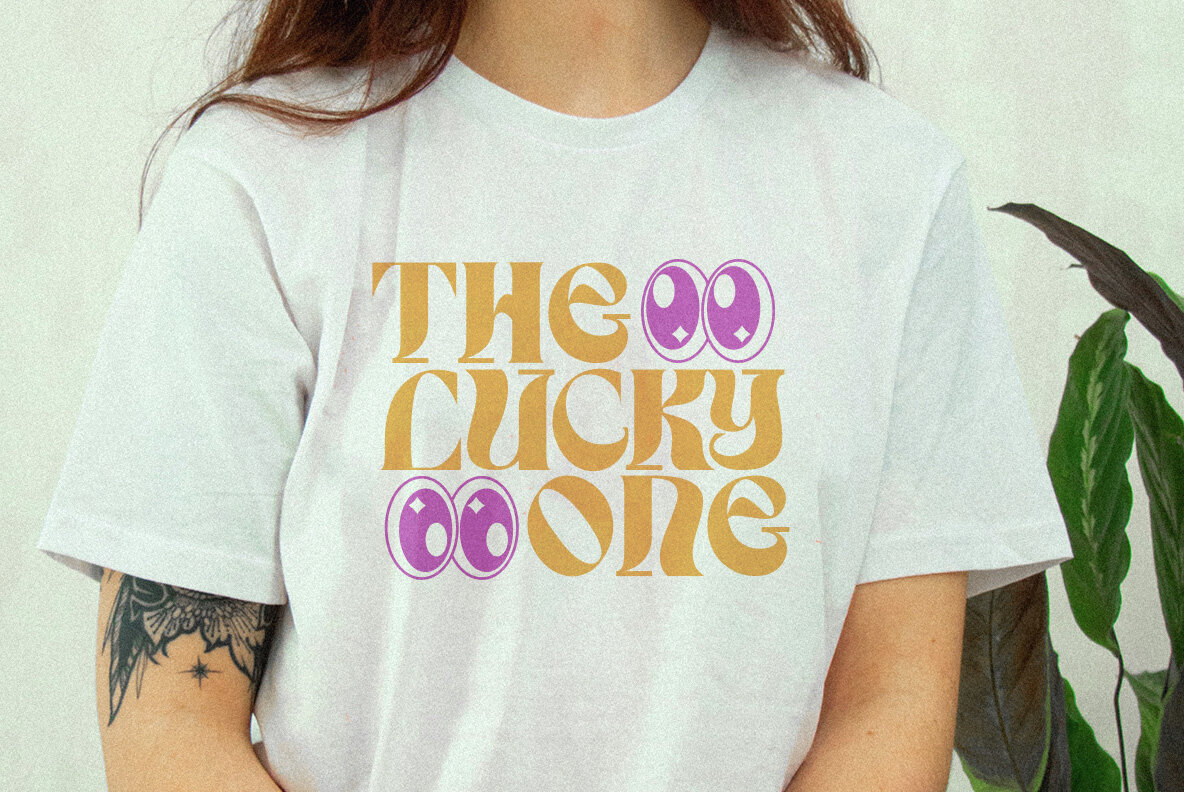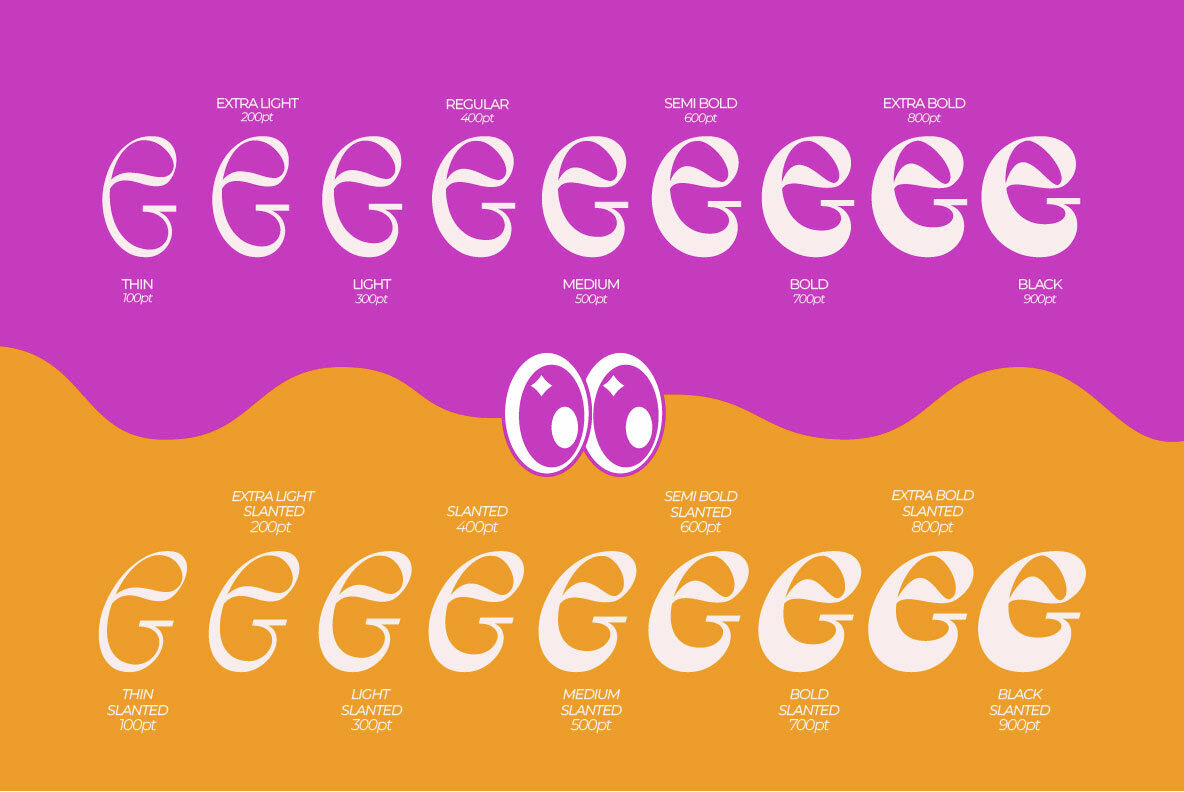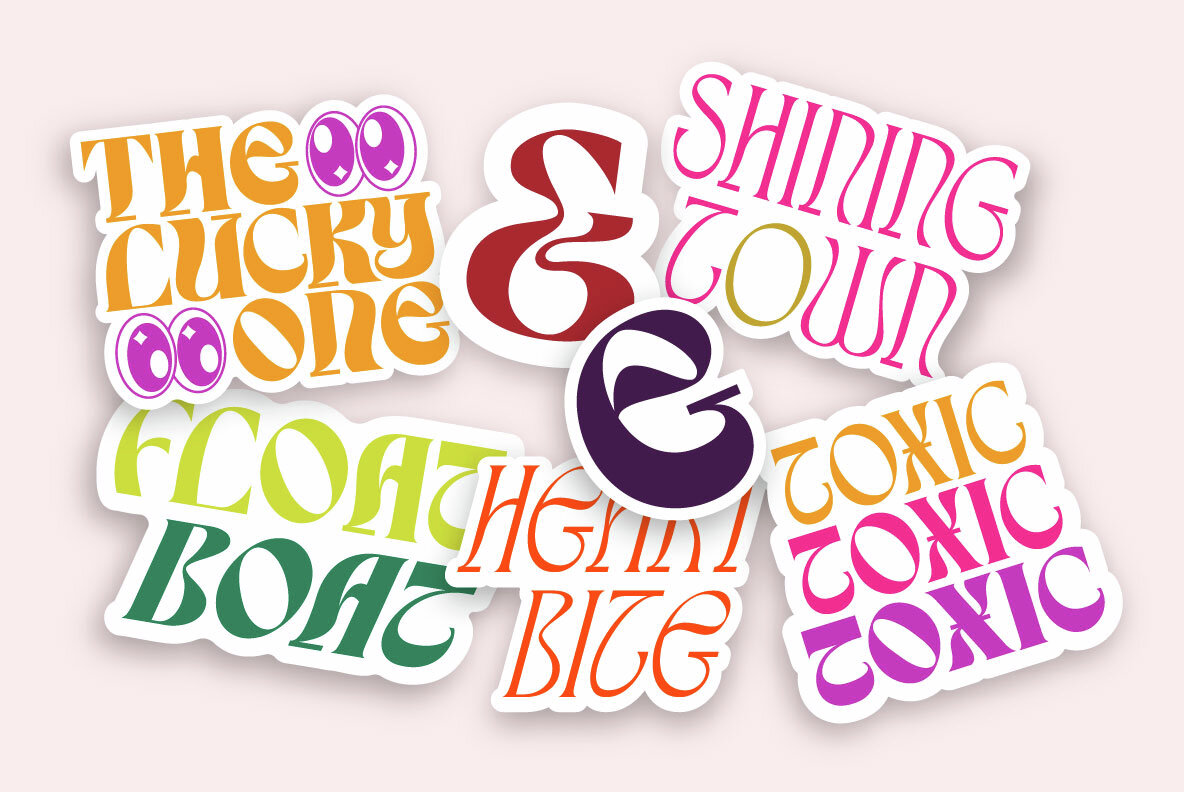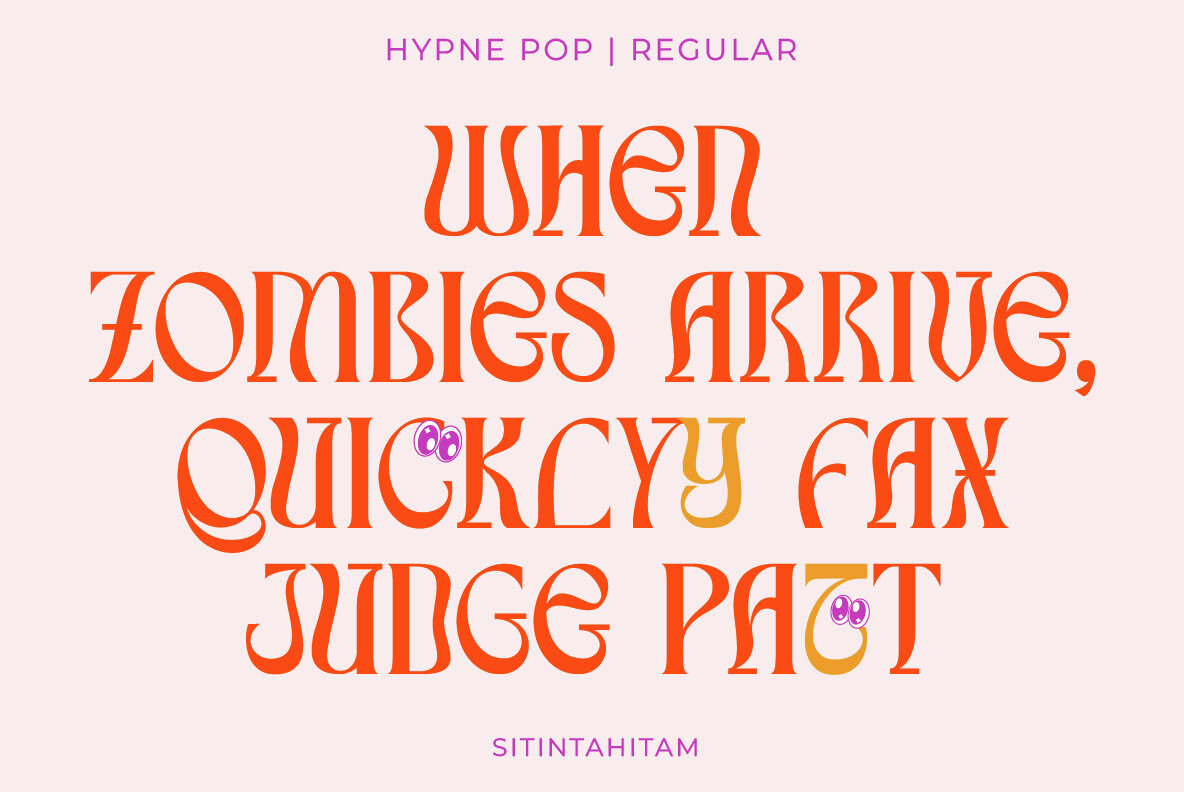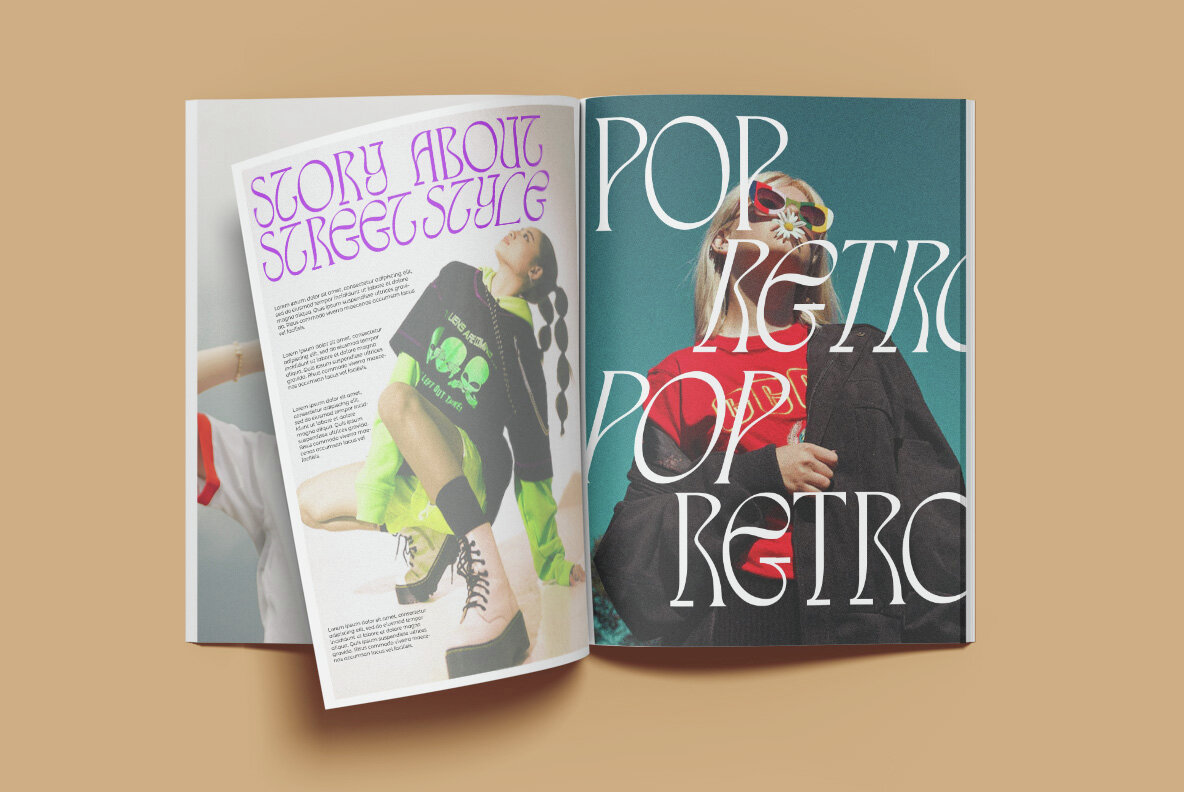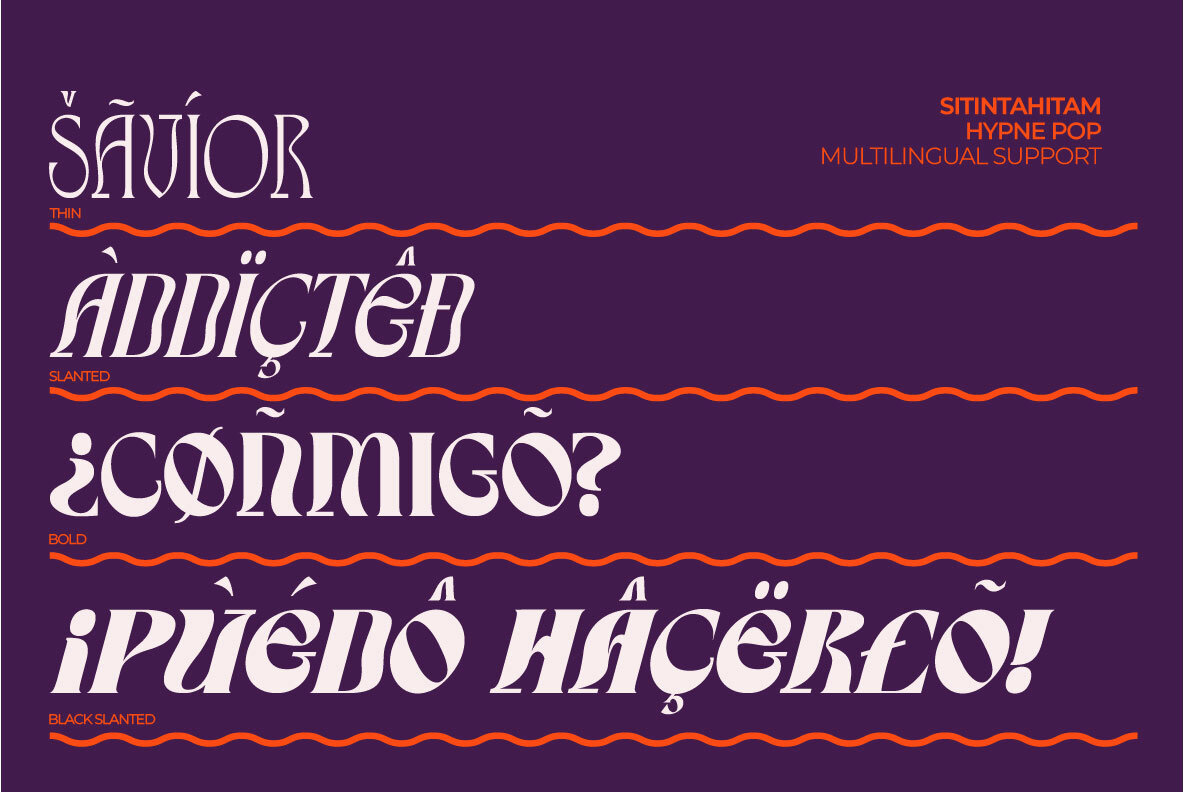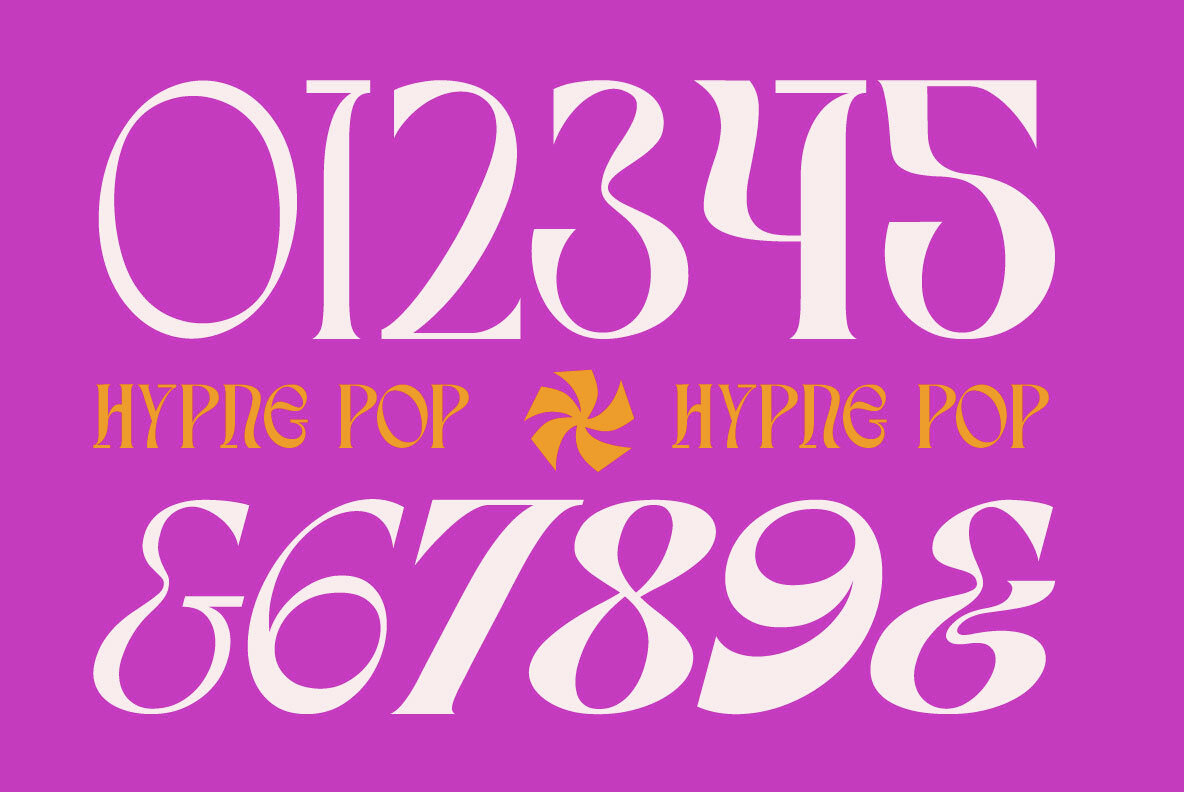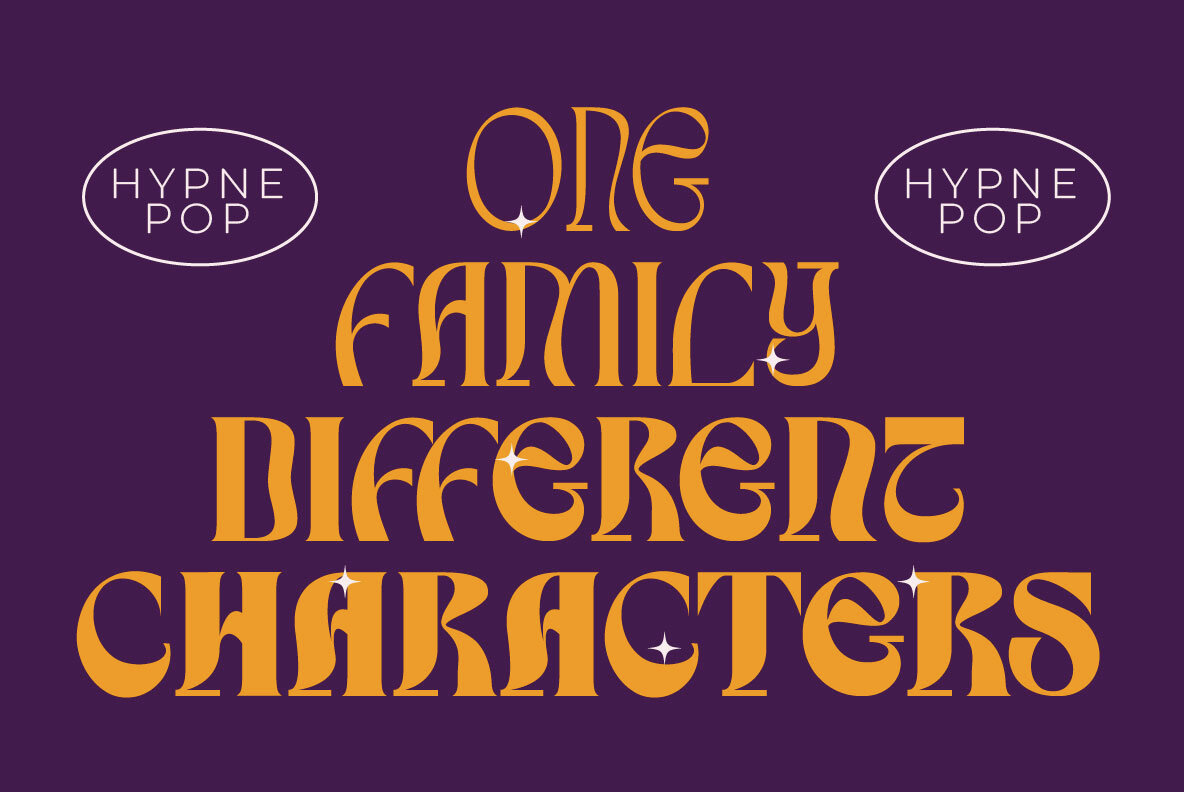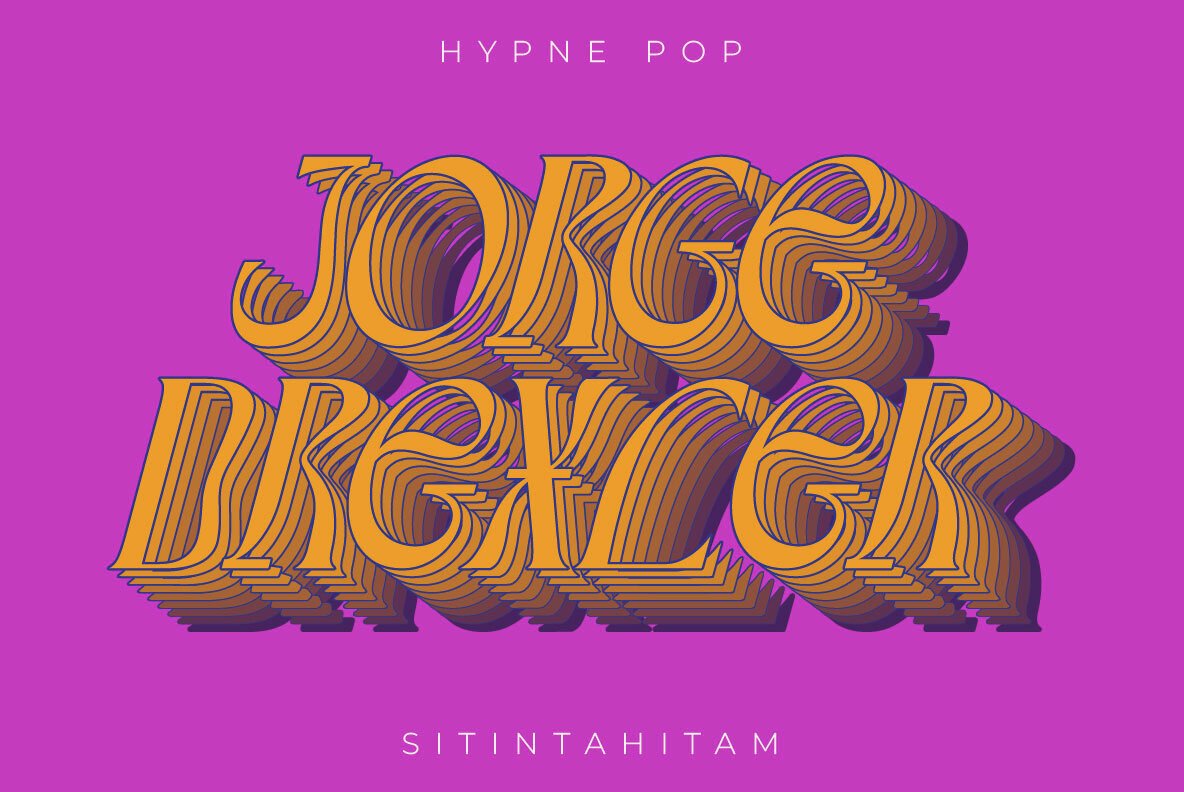
Hypne Pop Font
Hypne Pop, designed by hora nocte, draws inspiration from retro pop culture, delivering a captivating blend of groovy and funky styles. This versatile font family features nine unique weights in both regular and slanted styles, providing ample creative freedom for your design projects. Additionally, Hypne Pop is available as a variable font, allowing you to adjust its size seamlessly within a specific range using software like Adobe.Hypne Pop: Retro-Inspired Groovy Typeface